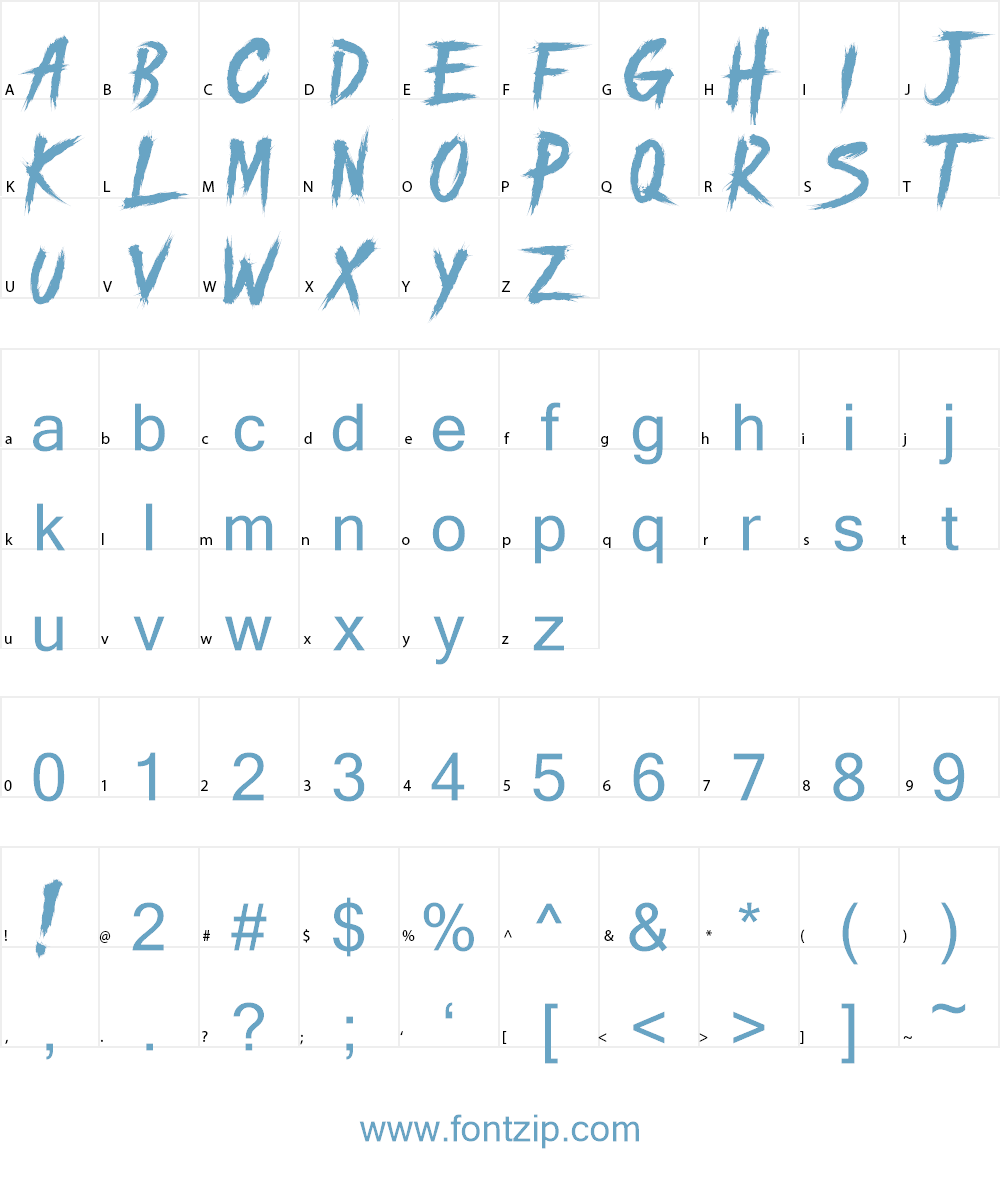
-INTRODUCING-
PILITACORE! Typeface.
Handmade ALL CAPITAL Hardcore inspired font made specially for dark and hardcore projects. Perfect for your Brand, Bands, Logos, etc.